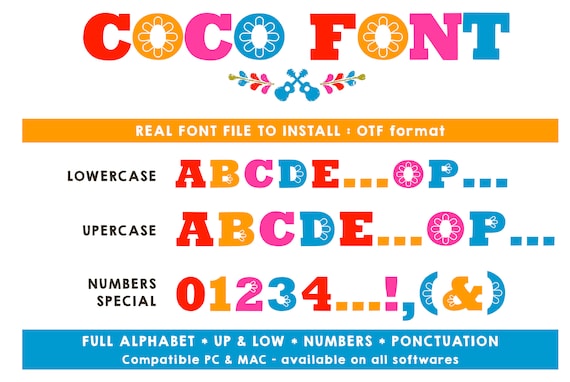
The best way to personalize a Coco birthday with invitations, labels, banners or even the big title name which decorate the sweet table !
What you'll find in the font :
- upper from A to Z
- lower from a to z
- numbers from 0 to 9
- ponctuation : ',.:!-_#()
- draws : leaves (left and right), crossed guitars